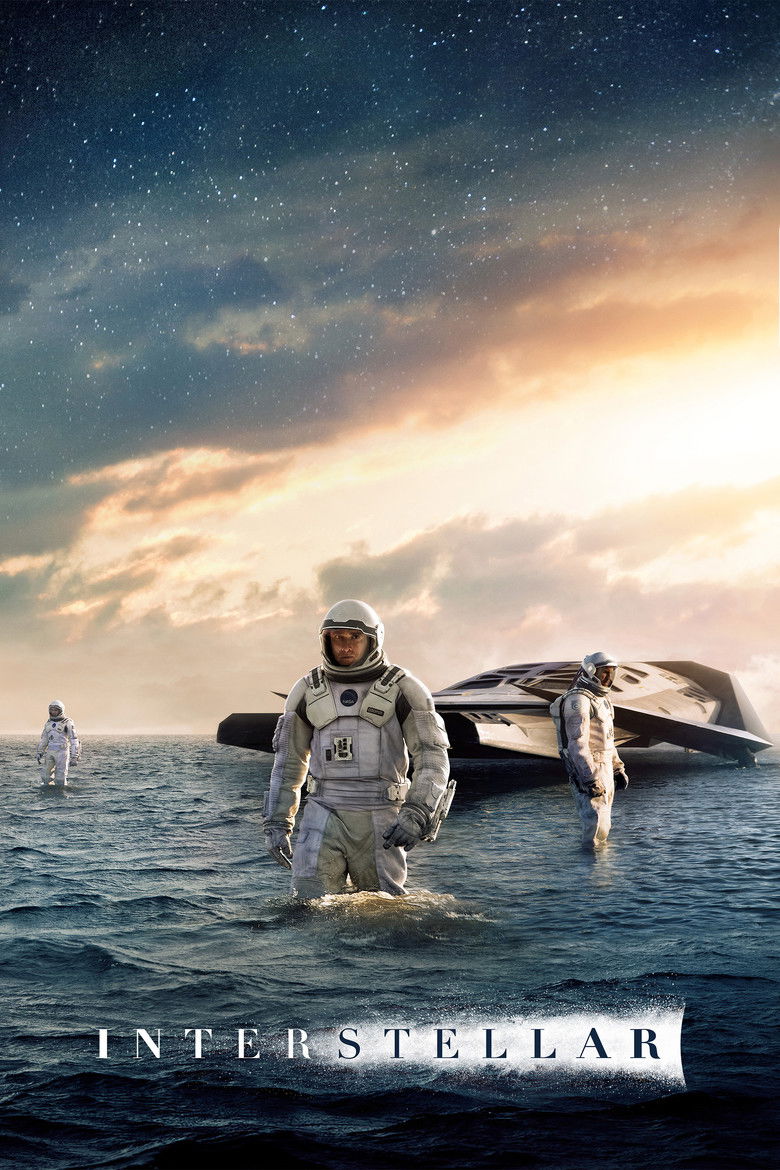
About the Interstellar font
Interstellar uses a stark, minimal condensed sans. Oswald mirrors that silent, deep-space gravity for free.
What font is used in the Interstellar logo?+
The original Interstellar logo uses custom lettering. This generator recreates the look with Oswald — a free, open-license font you can style and download.